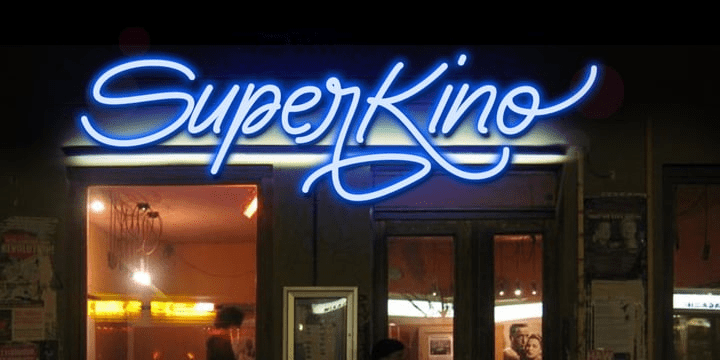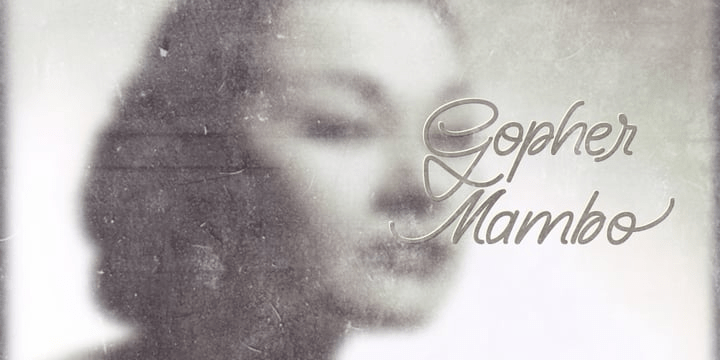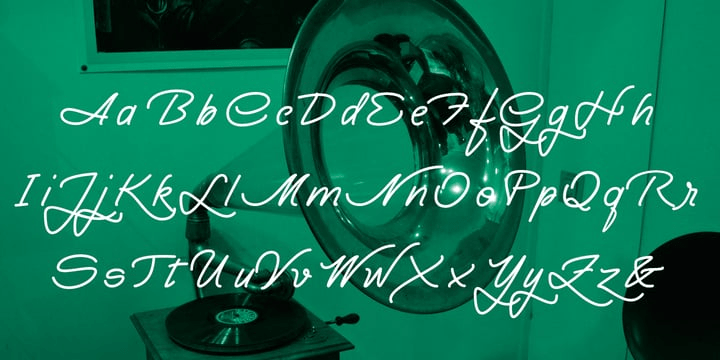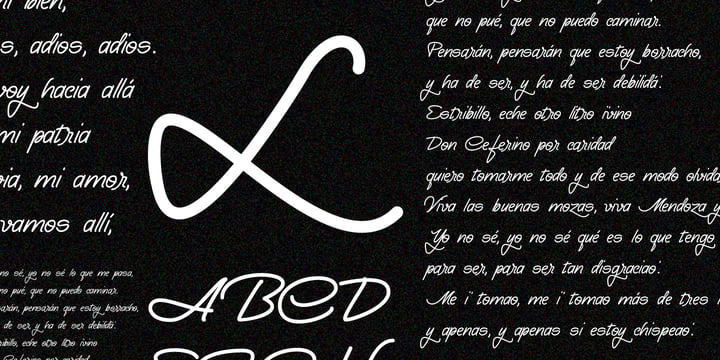
Yma
About Yma
Yma is inspired by 80\’s neonlight with an handwritten – brushpen style. Elegant & dynamic with a vintage look. There are also some interesting alternate glyphs.